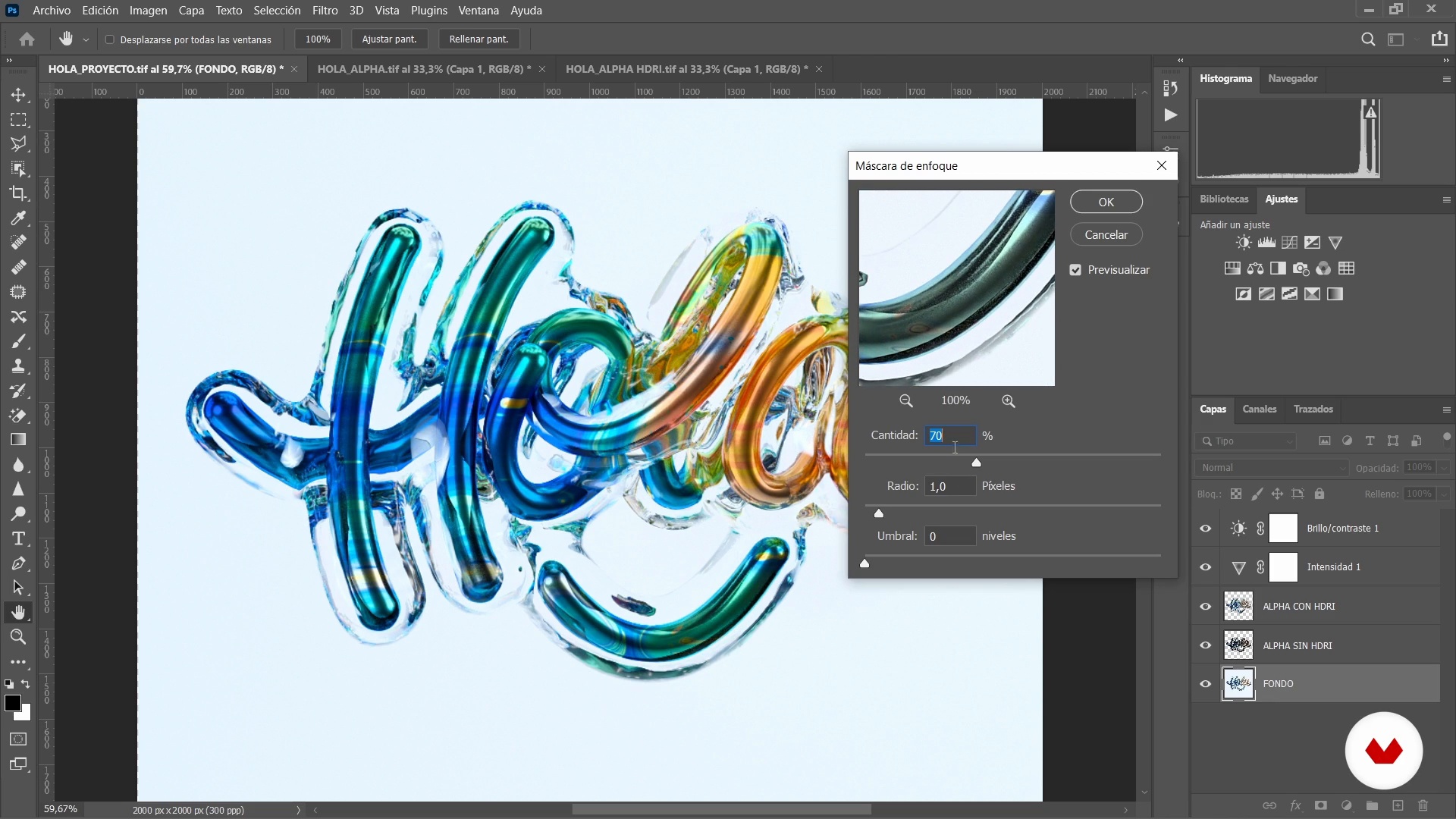
3D Font Design with a Metallic Finish
Final touches
About the video: Final touches
“It's time to play around in Photoshop! I'll focus on adjusting the colors of the projects, applying color, saturation, shadows and highlights adjustments. You can use any editing program you like for this step. ”
In this video lesson Dawlym Murillo Jaramillo addresses the topic: Final touches, which is part of the Domestika online course: 3D Font Design with a Metallic Finish. Learn three-dimensional modeling techniques in Cinema 4D to add a realistic and vibrant touch to your lettering.
“In this lesson, we'll work directly in Photoshop. We already have the three rendered projects ready and we are going to enhance the colors. After the final render comes the final adjustments and these settings I always enjoy because I can make use of the other renders that I applied or I can enhance the colors or apply another filter. In this case, As I explained to you in the previous lesson, we did three renders, one with background and hdri, another without the background and without the hdri and another without the background but with the hdri. So we are going to merge these two with th...”